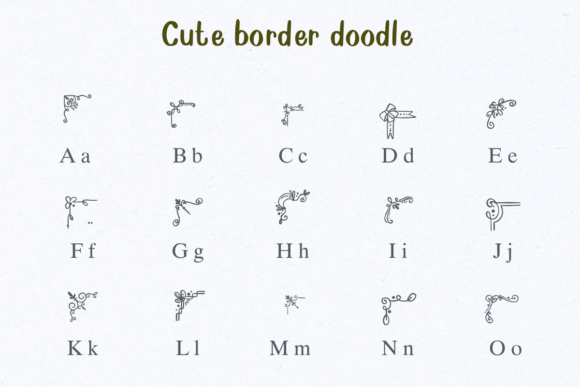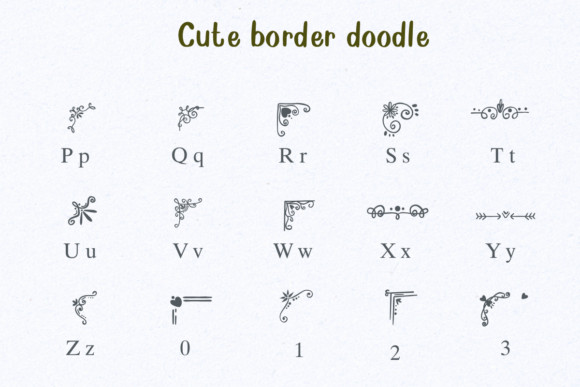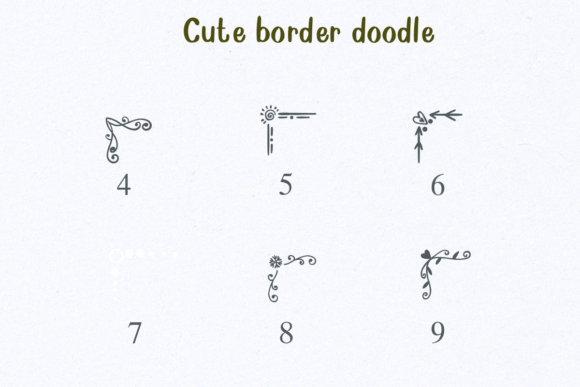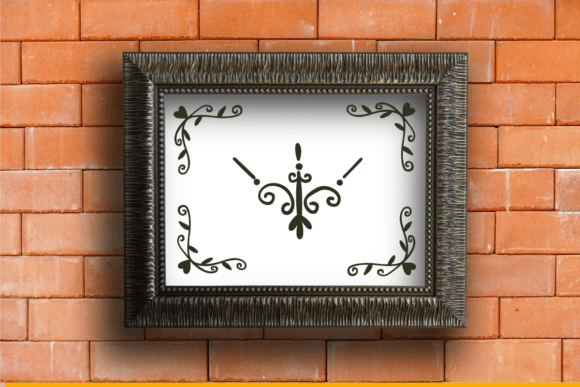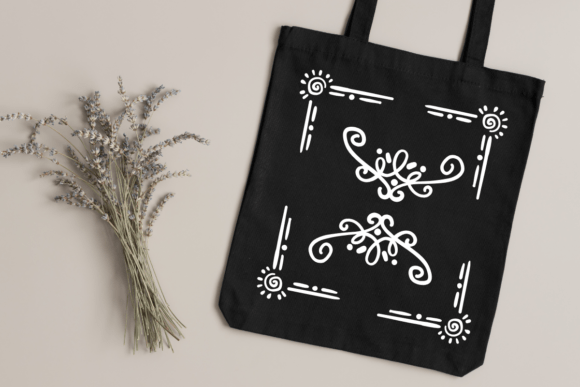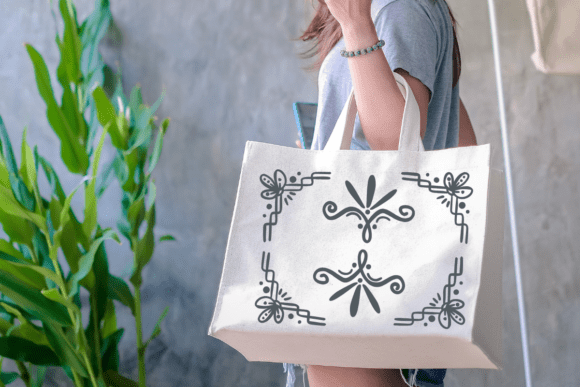
Introduction to Cute Border Doodle Font
Have you ever found yourself stuck in a creative rut, searching for that perfect design element to bring your project to life? For designers, this moment is all too familiar. But what if you stumbled upon a font that could instantly elevate your artwork and make it more engaging? Enter the Cute Border Doodle Font – a game-changing design resource that’s about to revolutionize your creative process.
This delightful font is more than just a pretty face; it’s a high-quality design tool that can add a touch of whimsy and personality to any project. Whether you’re working on a children’s book, a social media campaign, or a personal art piece, the Cute Border Doodle Font is the perfect addition to your design arsenal. With its transparent background and free download option, you can easily integrate it into your creative project and take it to the next level.
Key Features of Cute Border Doodle Font
• High-quality design: This font features intricate doodle designs and cute borders, perfect for adding a touch of whimsy to your creative project.
• Customizable: The Cute Border Doodle Font can be easily customized to fit your design needs, making it a versatile design resource.
• Perfect for creative projects: The Cute Border Doodle Font is ideal for a variety of creative projects, including digital art, illustrations, and design.
Honest Review: Cute Border Doodle Font
What works well is the high quality of the font. The design is crisp and clean, making it perfect for a variety of design applications. The border doodle style adds a fun and playful touch to any design, making it a great resource for designers who want to add some personality to their work.
• ✨ High-quality design
• ✨ Transparent background option
• ✨ Great for creative projects
One limitation of the font is that it may not be suitable for professional or formal designs, as it has a more playful and casual tone.
Overall, I’m impressed with the Cute Border Doodle Font. It’s a great design resource that’s perfect for designers who want to add some fun and personality to their work. While it may not be suitable for all types of designs, it’s definitely a valuable addition to any designer’s toolkit.
Cute Border Doodle Font
The Cute Border Doodle Font is a versatile design resource that can add a personal touch to your creative projects. With its transparent background, this font is perfect for use in various applications.
To get the most out of the Cute Border Doodle Font, experiment with different font sizes, colors, and styles. Combine this font with other design elements to create a unique look.
The Cute Border Doodle Font is perfect for use in various creative projects, such as:
• Custom graphics and invitations
• Social media posts and graphics
• Branding materials and logos
• Presentations and reports